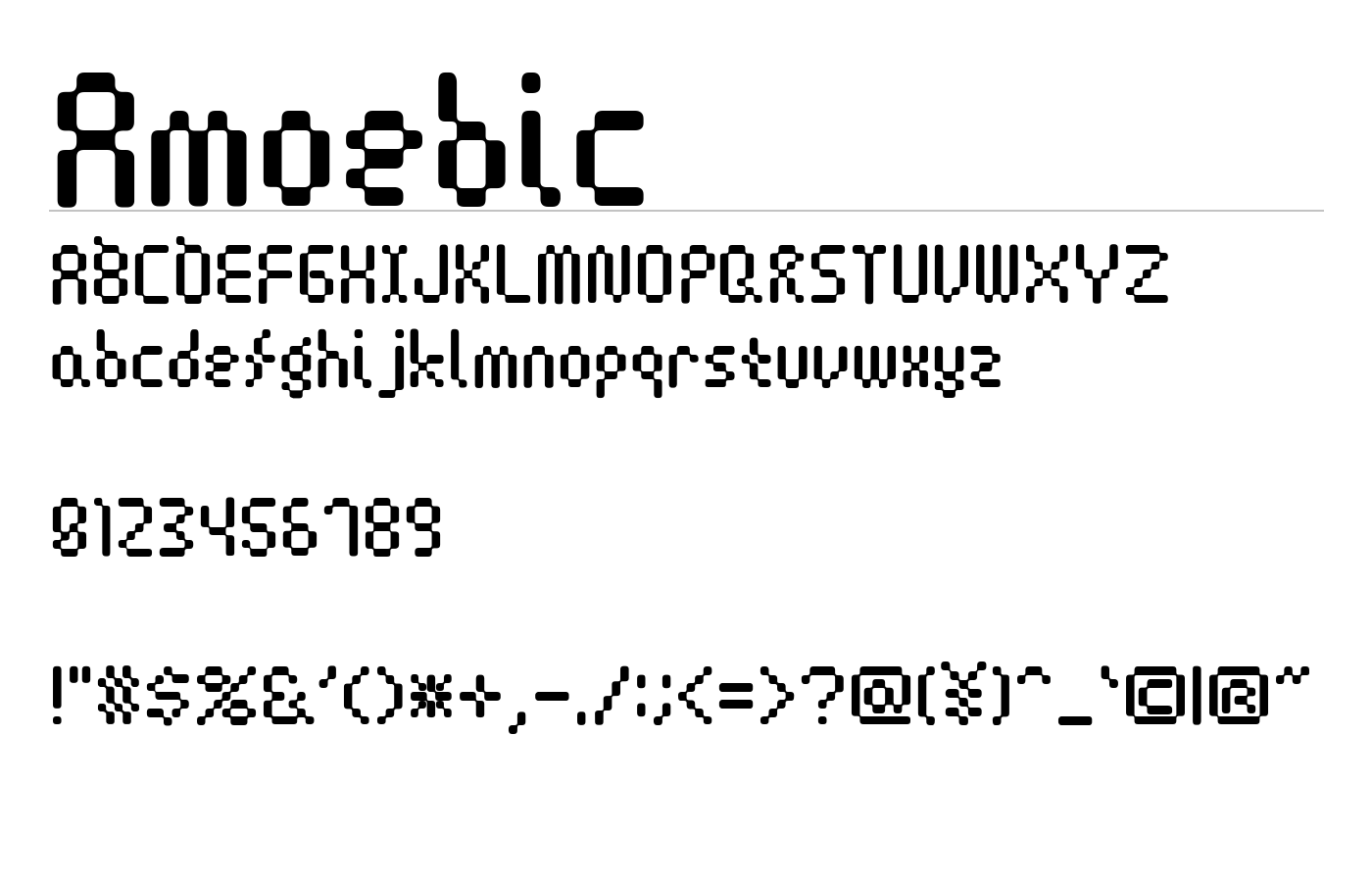
Amoebic is a distinctive sans serif font with a pixelated, blocky style that gives it a digital, retro-futuristic vibe. Its monospaced letterforms have a playful, slightly rounded appearance with consistent stroke weight and low contrast, making it ideal for tech-themed or gaming projects. This font works best for headlines, logos, and display text where a quirky, modern look is desired.
Amoebic Font
About Amoebic Font